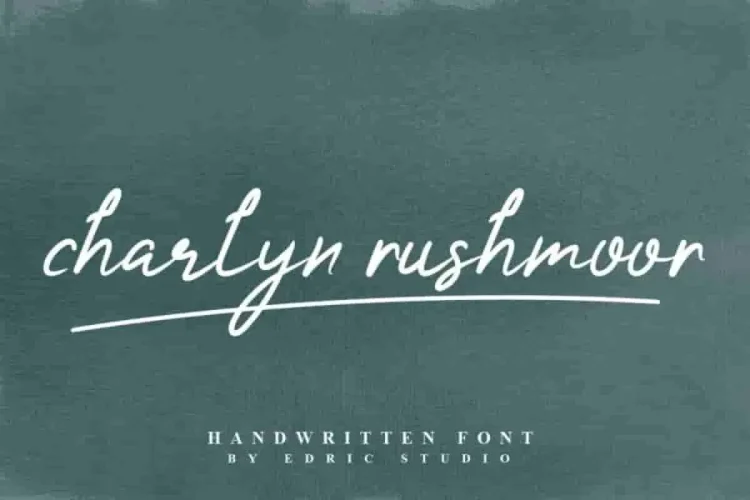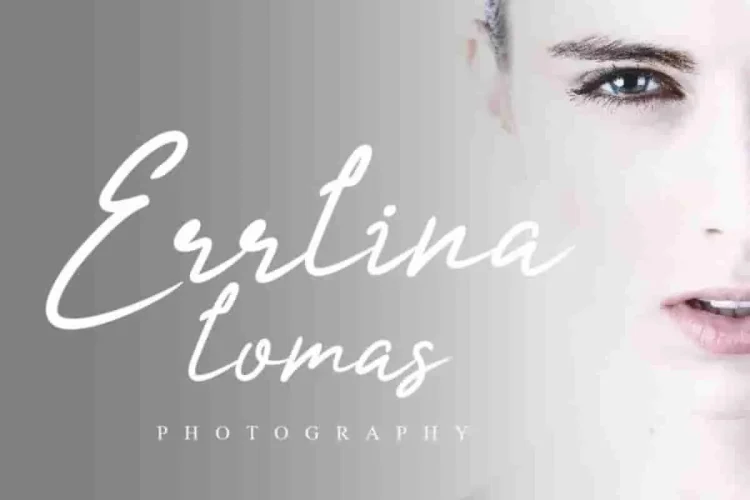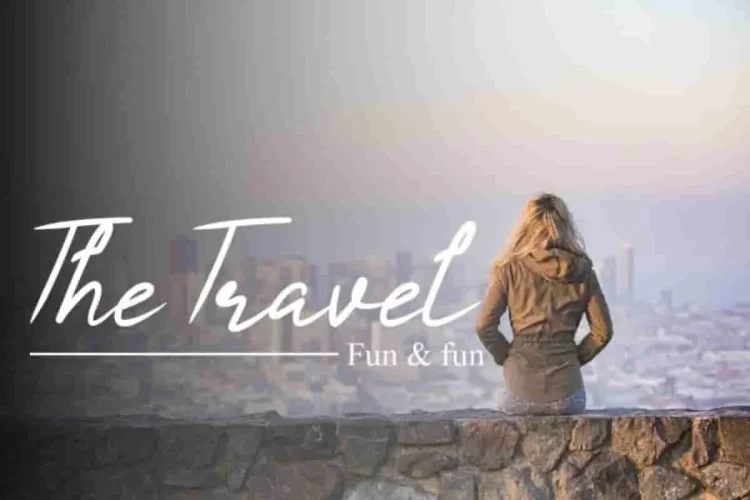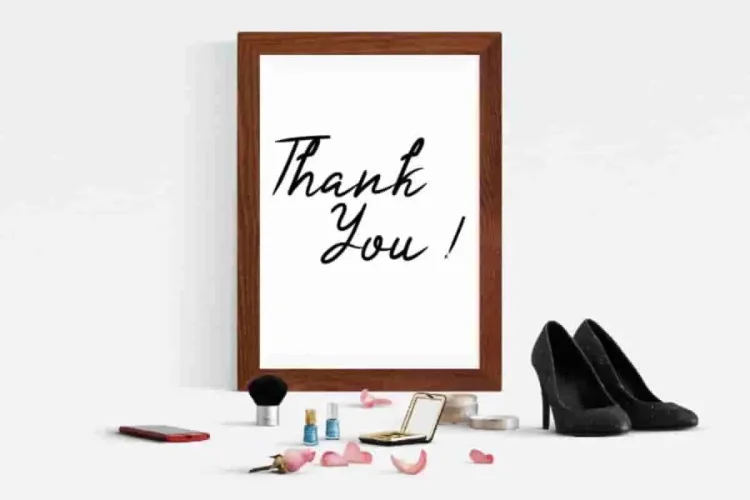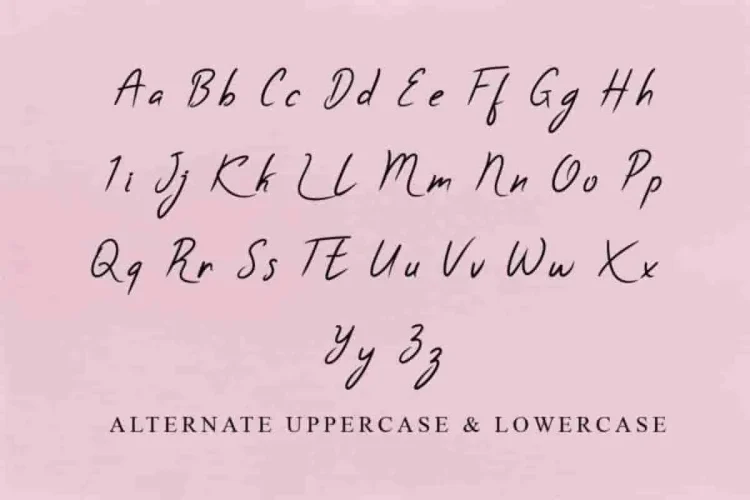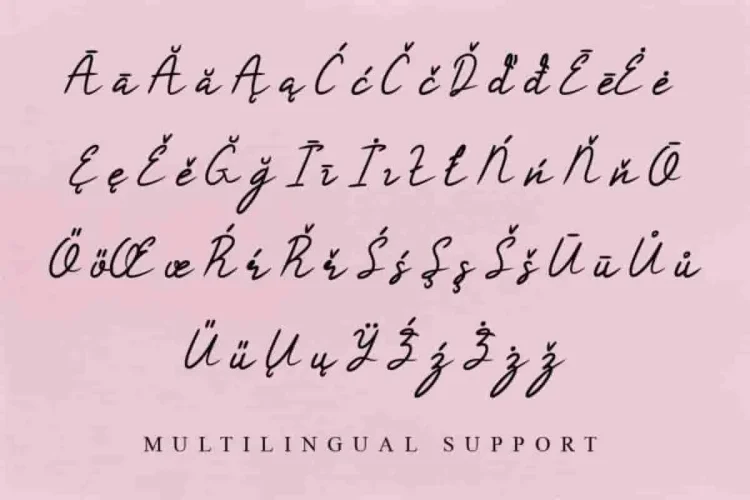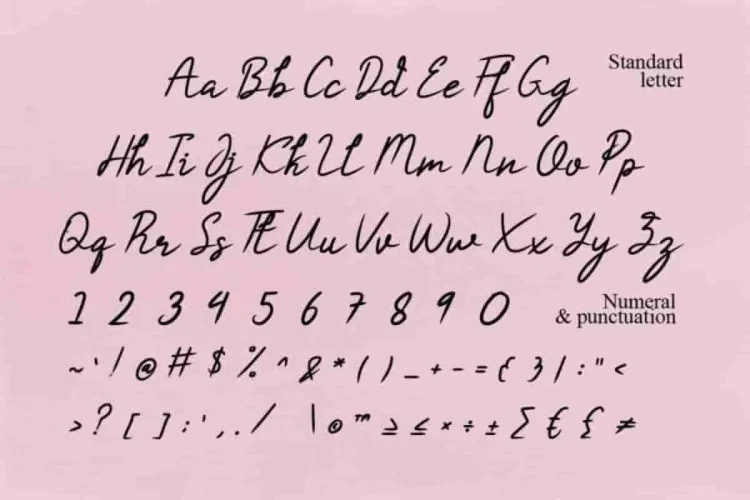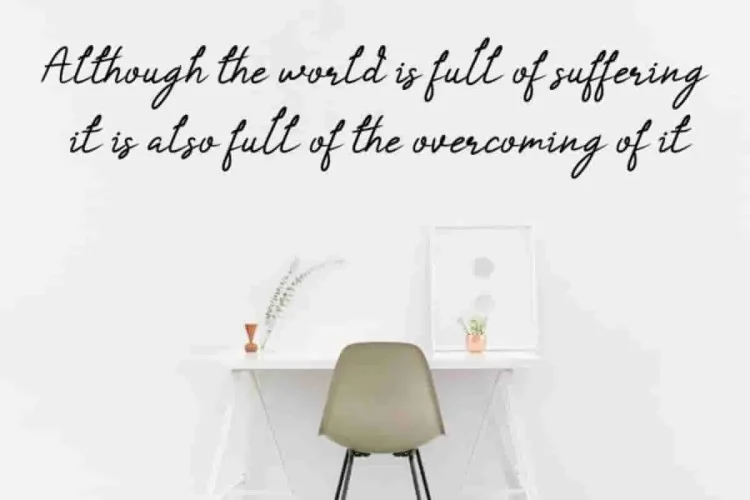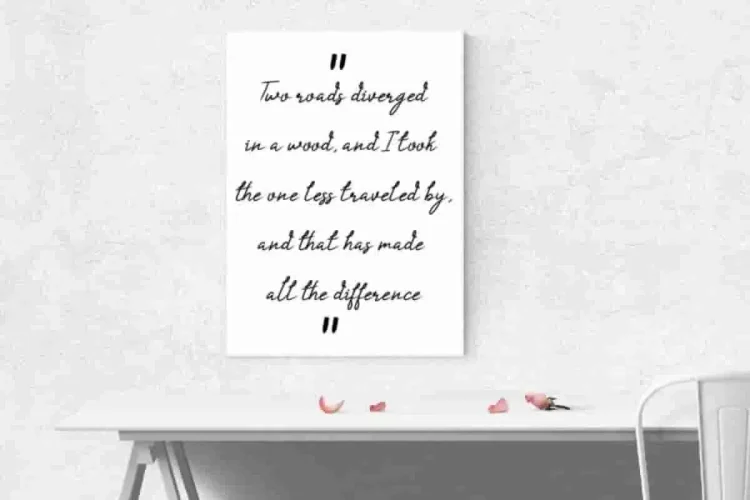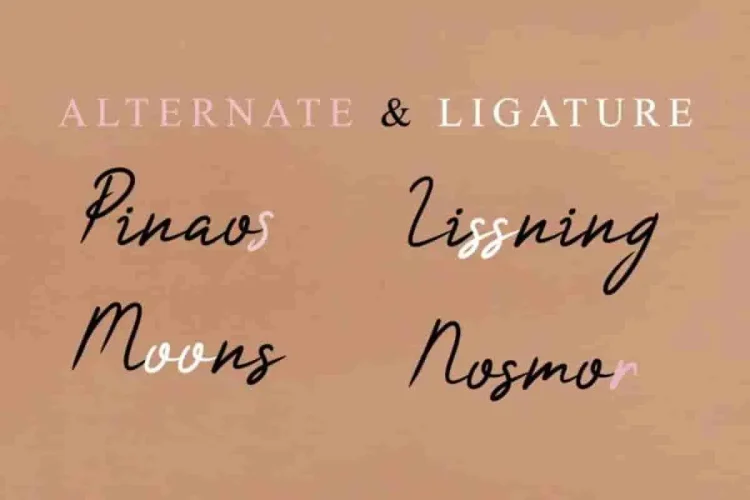
Charlyn Rushmoor Handwriting Font
Charlyn Rushmoor Demo
Back in 2020, we at Edric Studio proudly introduced Charlyn Rushmoor Font. This is a calligraphy script font family made inhouse at our studio in Bandung-Indonesia.
Charlyn Rushmoor Font is a calligraphy with beautiful glyphs and has many alternatives glyps : both lower and upper cases.
And if you need to work in different languages, that’s not a problem at all. Charlyn Rushmoor fully supports multilingual characters, making it perfect for international branding and connecting with diverse audiences worldwide.
Because of its versatile style, Charlyn Rushmoor Font will suits many projects including : Logo Design (with extended license), flyer, stationery, business card, signage, flyer, brochure etc.  With your creativity, there’s no limit using with this font.